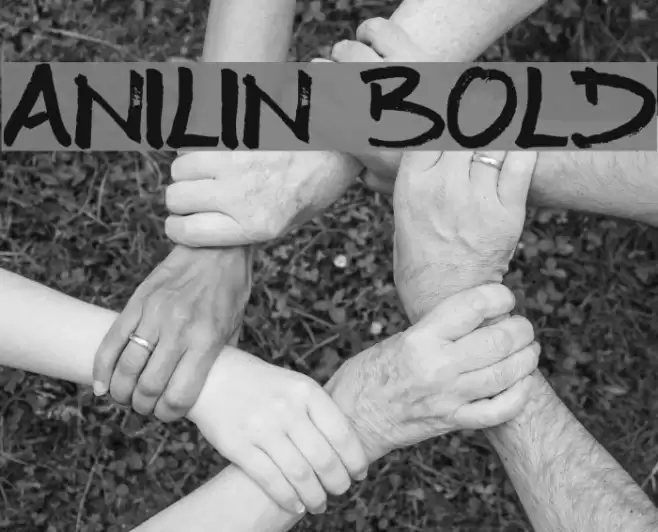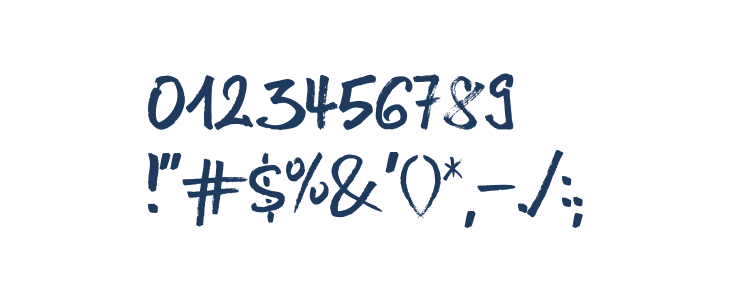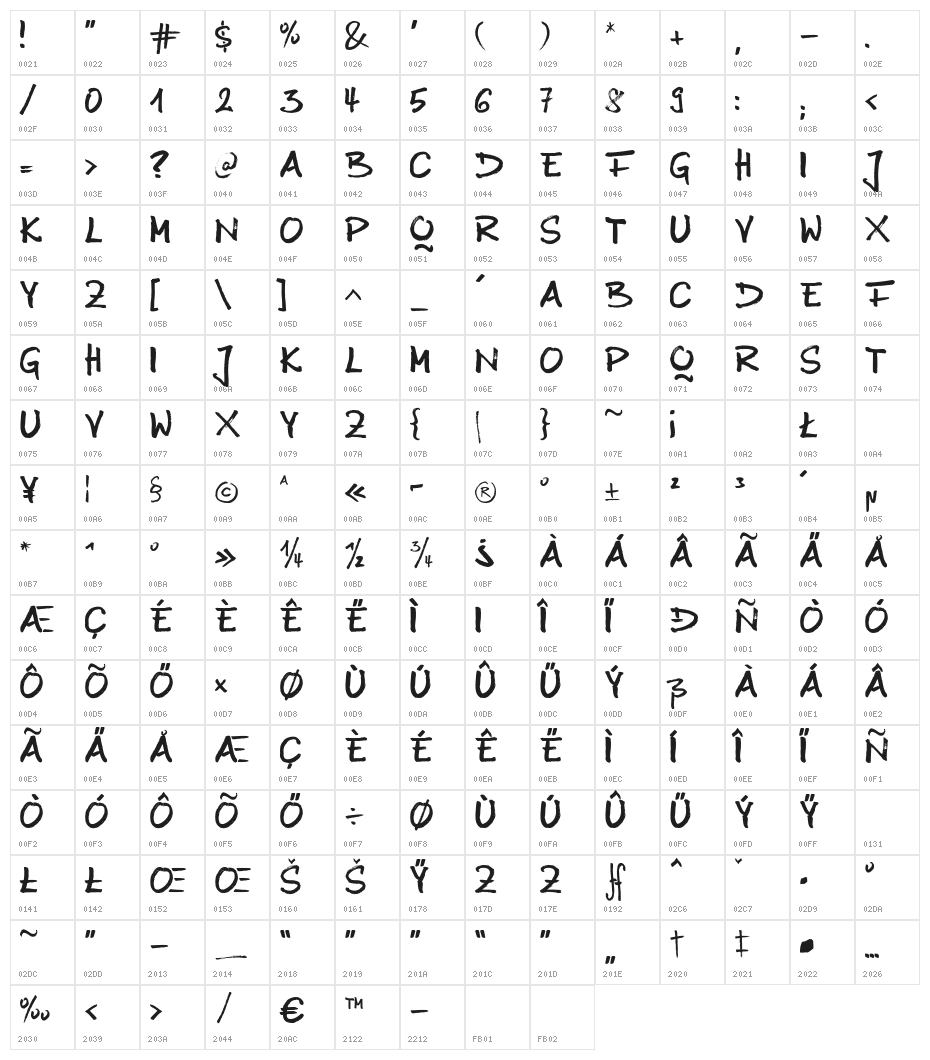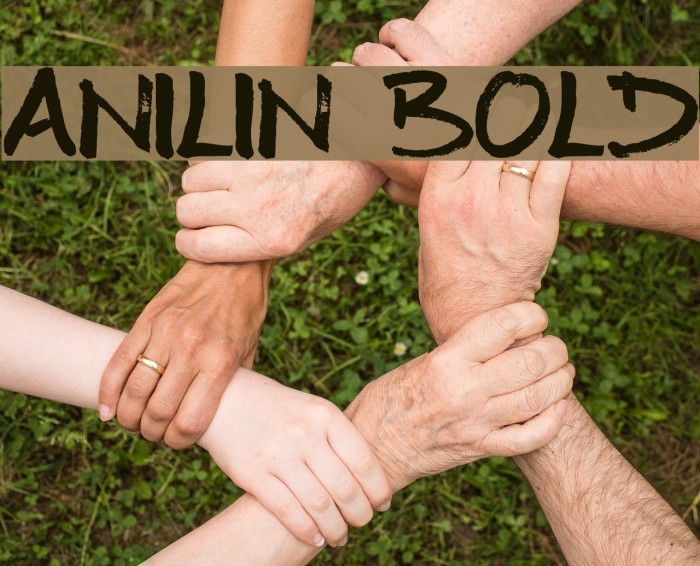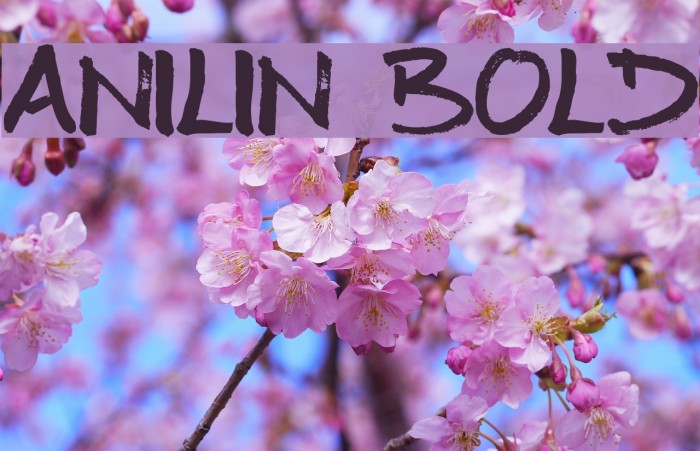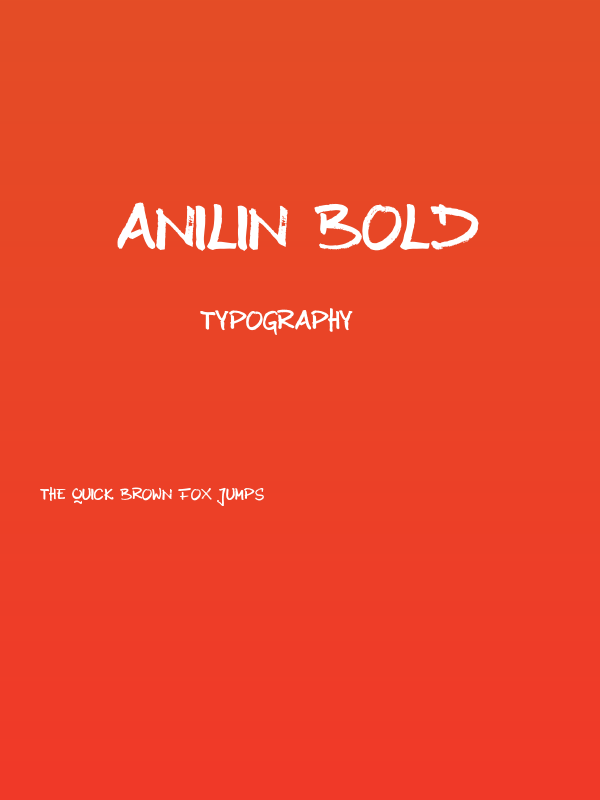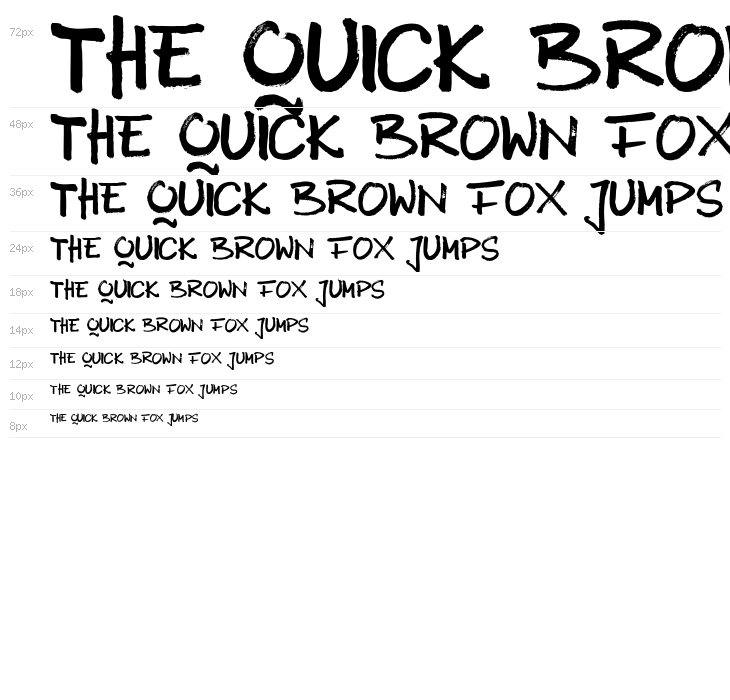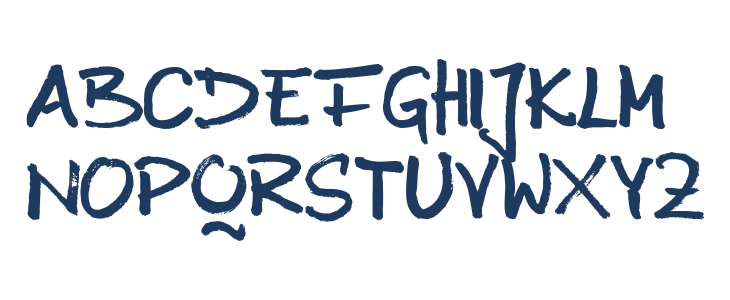
Anilin Bold Font
Anilin Bold Description
This font exudes a bold and expressive style, characterized by its brush-like strokes that give it a dynamic and energetic appearance. The letters are crafted with a sense of movement, as if painted with a thick brush, resulting in a textured and artistic look. The uppercase and lowercase letters maintain a consistent style, with slightly irregular edges that enhance its handcrafted feel. The numerals and special characters follow the same aesthetic, ensuring a cohesive design throughout. This font is ideal for projects that require a strong visual impact and a creative touch.
A bold, brush-stroke font with an expressive and artistic style from Uncategorized fonts.
- Proposed Projects: Perfect for posters, branding, album covers, and creative advertising.
- Overall Style: Modern, Artistic